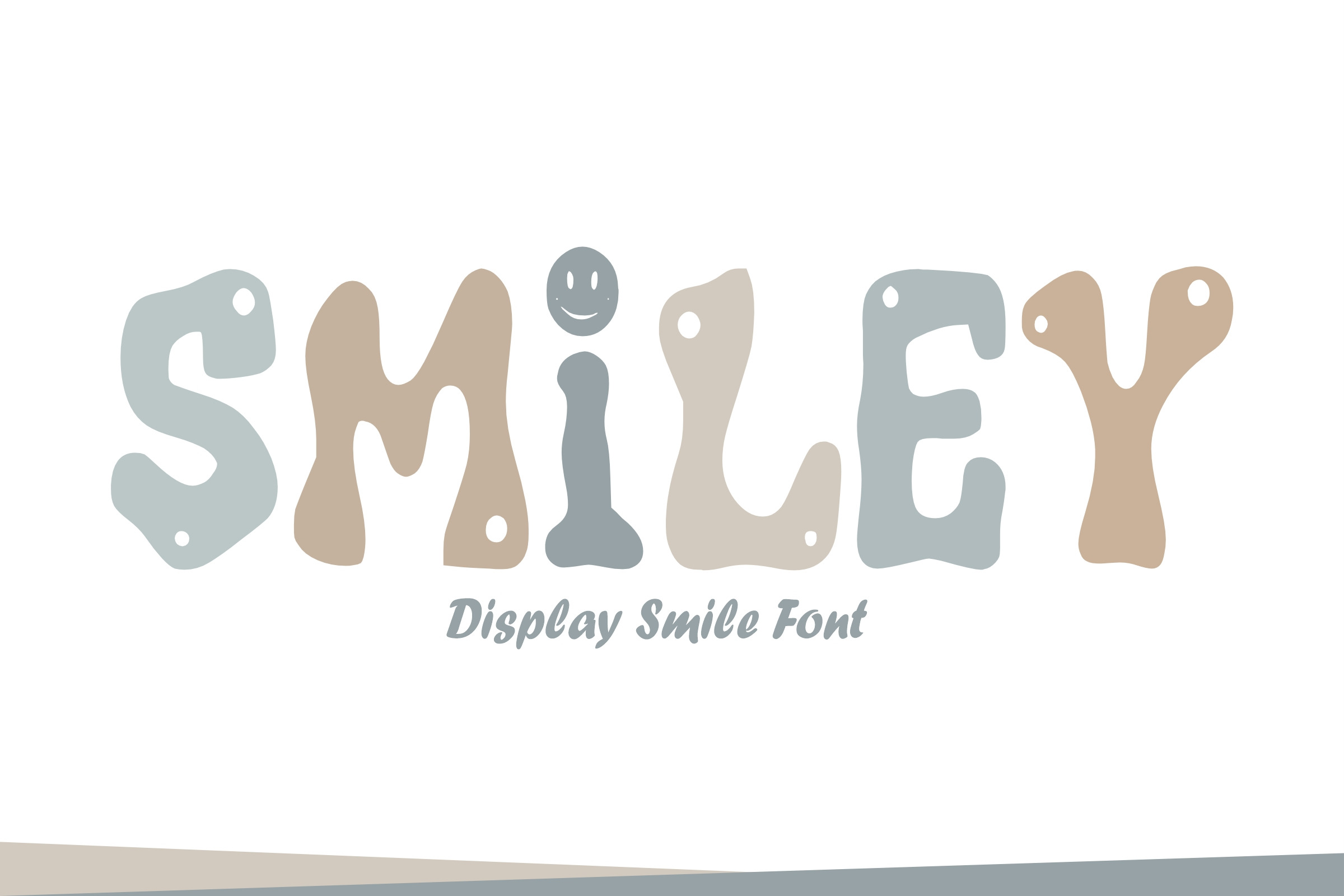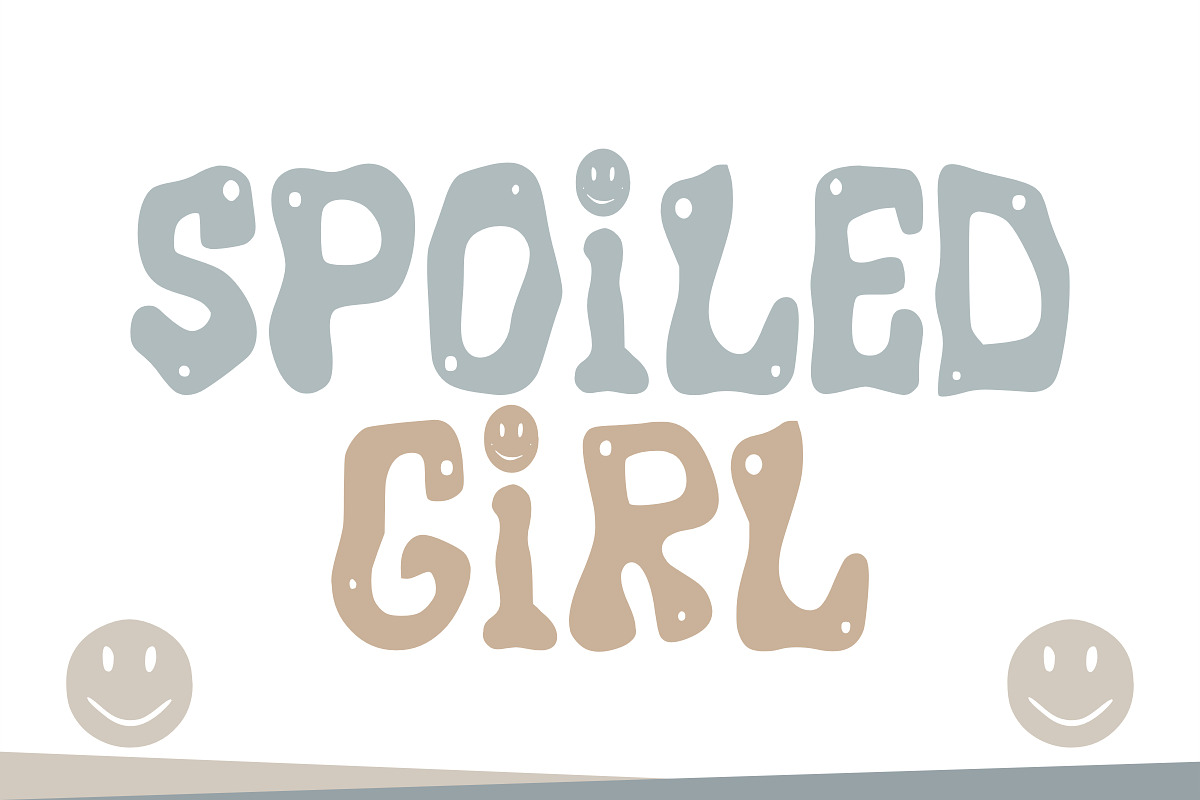
Smiley Font - Cute Font Types
Smiley is a cheerful display font that brings colorful fun and joy to your projects. With its modern style and look, this font offers hope for a variety of creative endeavors. Let Smiley add a pop of color and whimsy to your designs, suitable for everything from comics to stickers, logos, and posters.